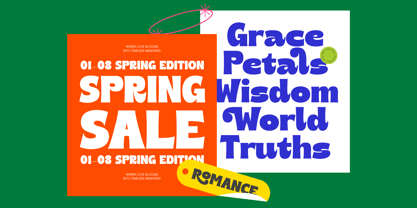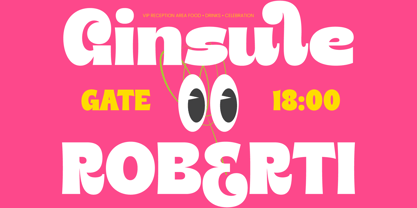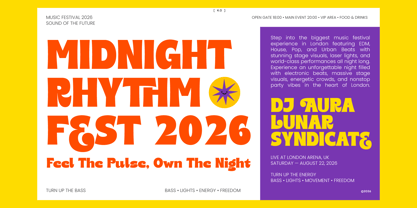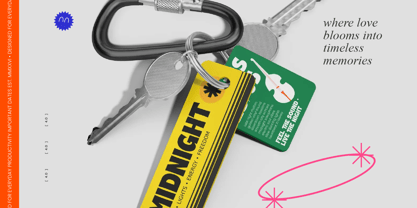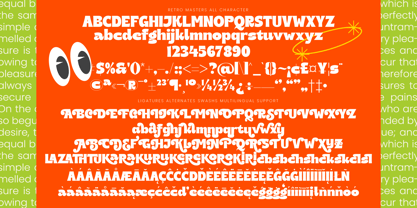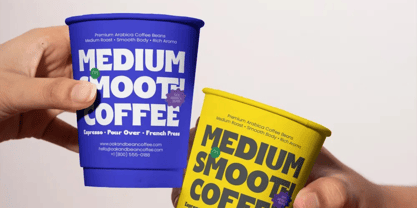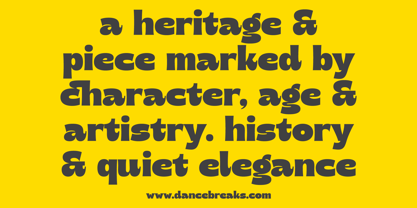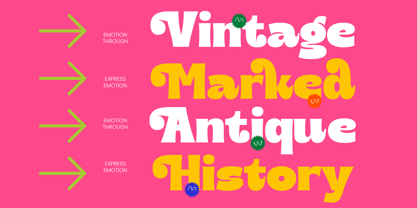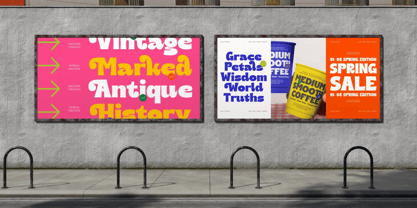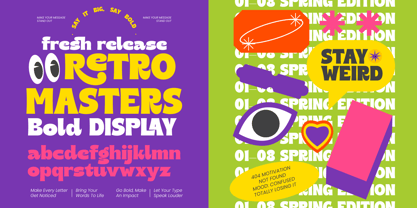
Retro Masters
Step into a world of vibrant energy and unapologetic style with Retro Masters - New Bold Display Sans, the ultimate tool for designers looking to command attention. This typeface isn't just a set of letters; it is an invitation to break the mold and inject a dose of high-voltage personality into every creative project you touch.
Drawing deep inspiration from the groovy 1970s and the psychedelic movements of the past, this font captures the essence of a neon-lit dreamscape. Its thick, curvaceous forms and rhythmic flow evoke the rebellious spirit of vintage vinyl covers and underground poster art, reimagined for the digital age.
The personality of this typeface is built for maximum branding impact, offering a level of luxury typography usually reserved for high-end boutique labels. While it functions as a modern serif display alternative, its high-contrast serif elements and editorial font sensibilities ensure that your message remains sophisticated yet wildly expressive.
As the modern serif trend continues to evolve, this typeface stays ahead of the curve by blending nostalgia with contemporary sharp edges. It perfectly captures the current wave of editorial display fonts that prioritize character-driven typography, making it a must-have for creators who want their work to feel both timeless and trendy.